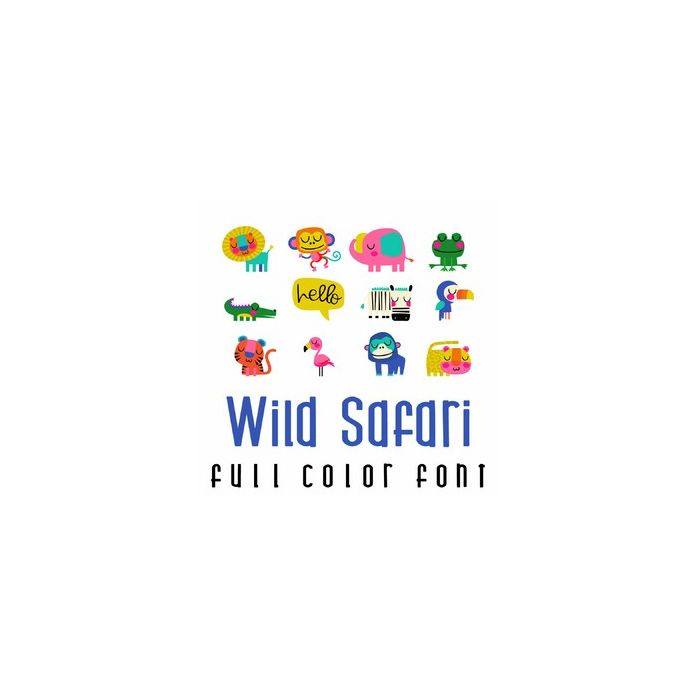
This adorable full-color doodlebat font features 26 adorable safari animals. Perfect for cards, crafts, gifts, decor, scrapbook pages, planner stickers, and more!